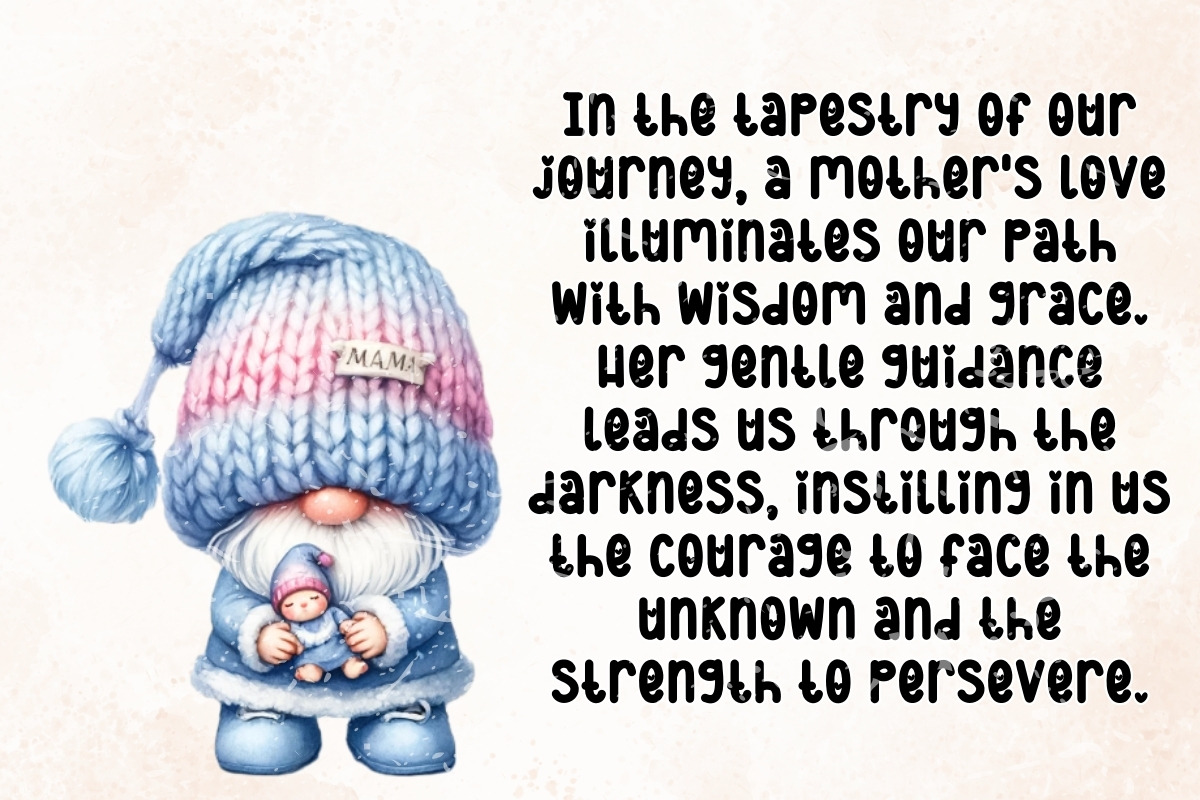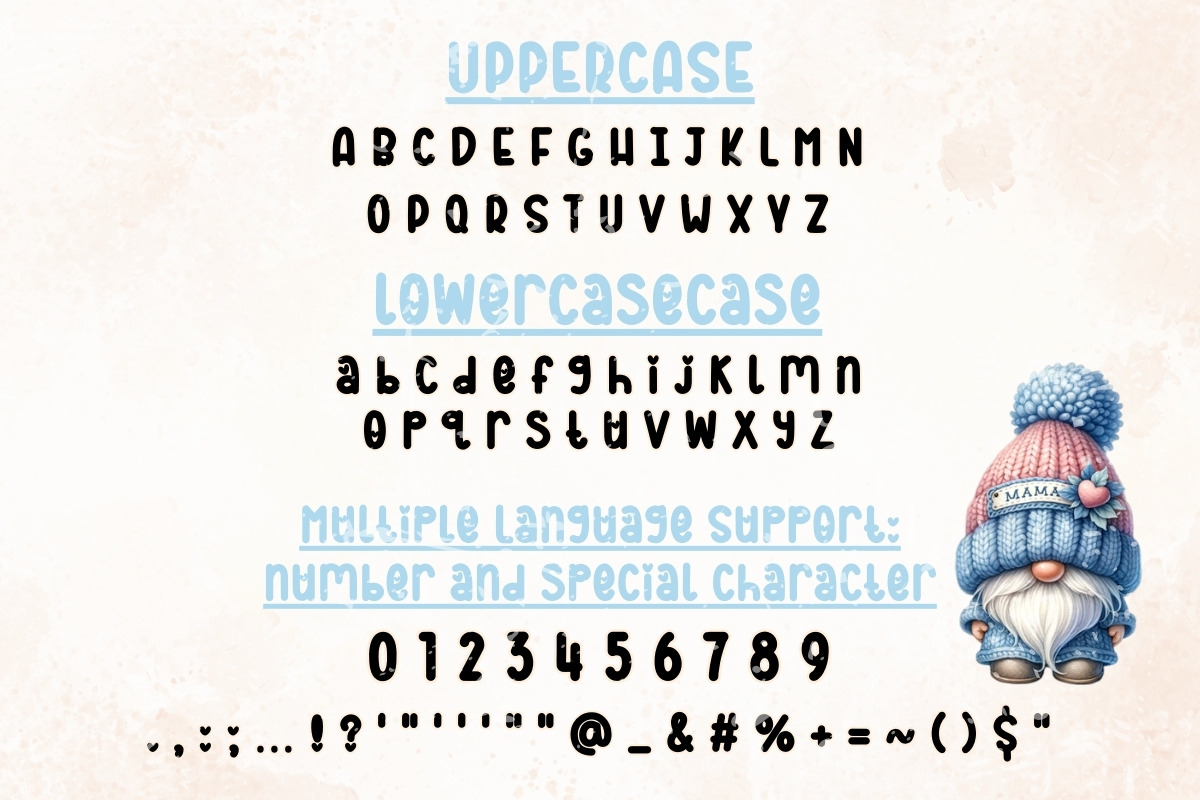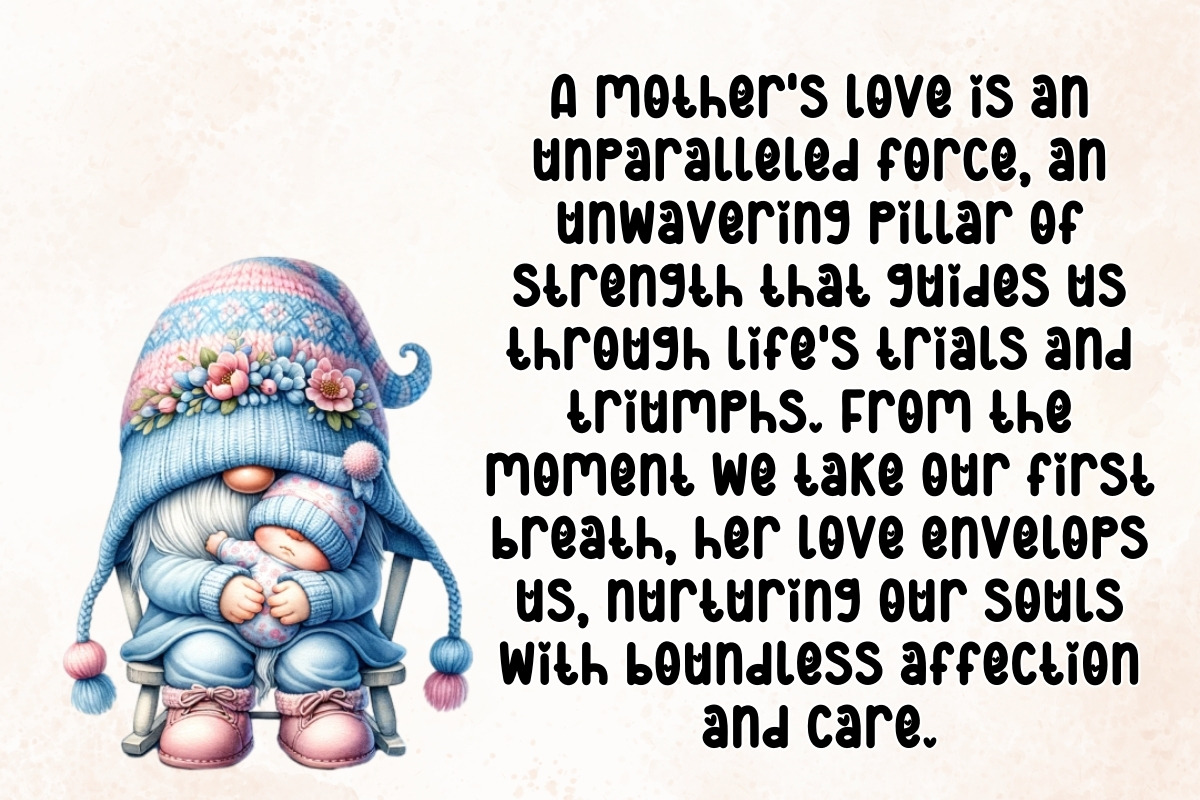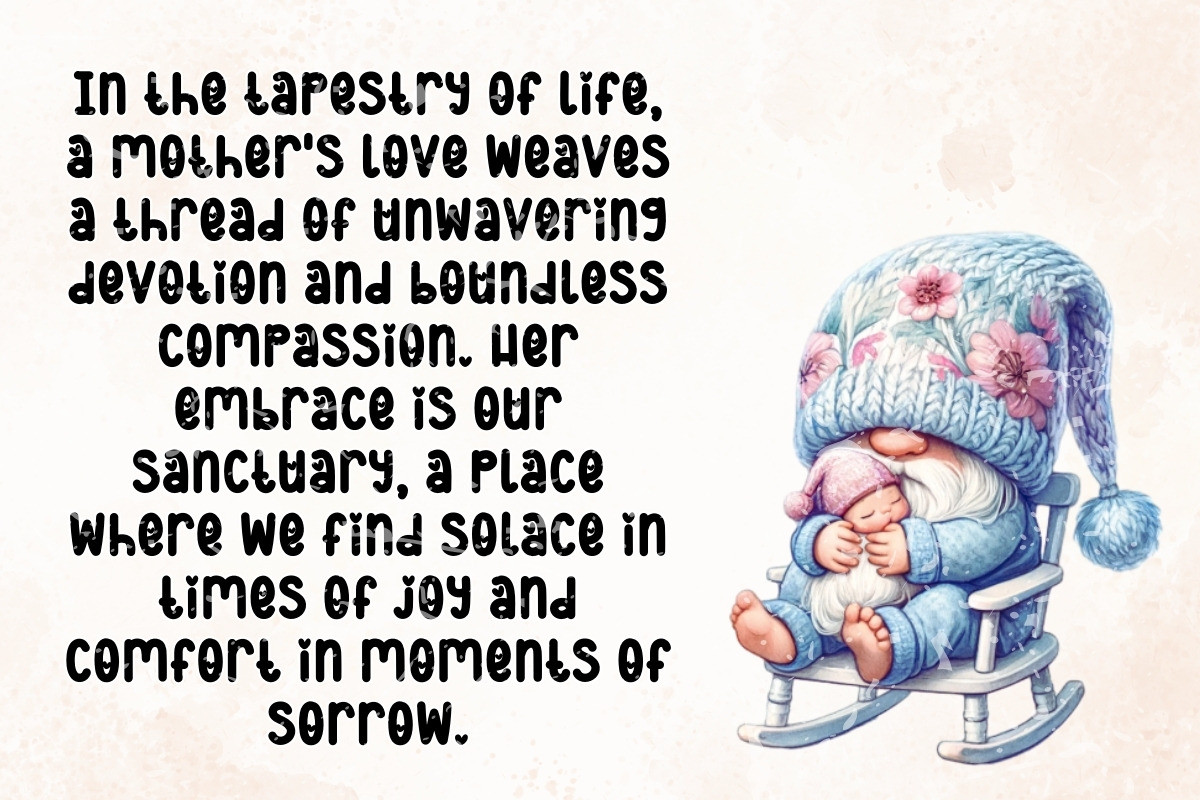
Tender Guardian - Handwritten
Introducing "Tender Guardian" font! This adorable handwritten font is the epitome of sweetness and charm. With its delicate strokes and playful curves, "Tender Guardian" adds a touch of whimsy to any project. Whether you're designing invitations, crafting greeting cards, or creating social media graphics, this font will bring a sense of warmth and affection to your work. Let "Tender Guardian" be your companion in spreading love and joy through the written word.